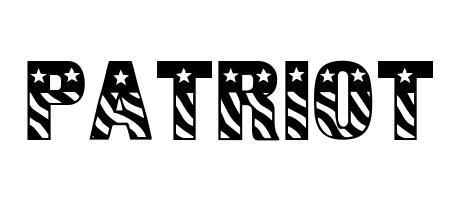
Patriot
By James Fordyce
Patriot: A bold, sans-serif typeface, each letter proudly displays a miniature American flag design. The stripes and stars are subtly integrated into the letterforms, creating a patriotic feel without being overly decorative. The font evokes strength and national pride, ideal for celebratory or commemorative designs.